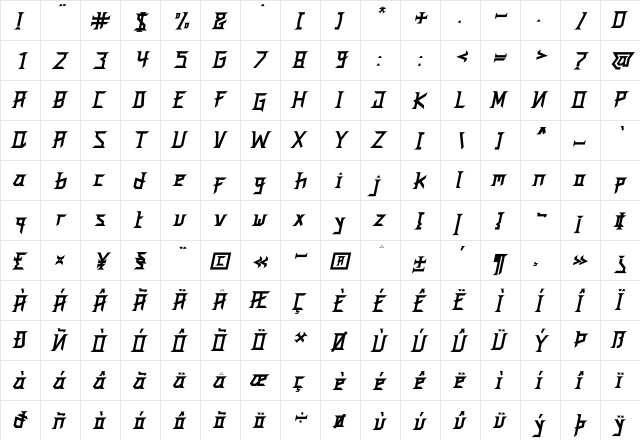
Western Monttero Italic Regular
Design Context for Western Monttero Italic Typeface
Western Monttero Italic taps into classic Western woodtype traditions — bold, characterful, and impossible to ignore. Its italic angle brings a sense of urgency and motion to the letterforms.
A natural fit for craft spirits, ranch branding, rodeo events, and Americana-inspired design work.
Font Pairing: Combine Western Monttero Italic with a simple slab or neutral sans — period-accurate companions reinforce the vintage feel without competing for attention.
Pro Tip: Use Western Monttero Italic for short, impactful bursts of text — it shines in poster headlines and product names rather than extended copy.